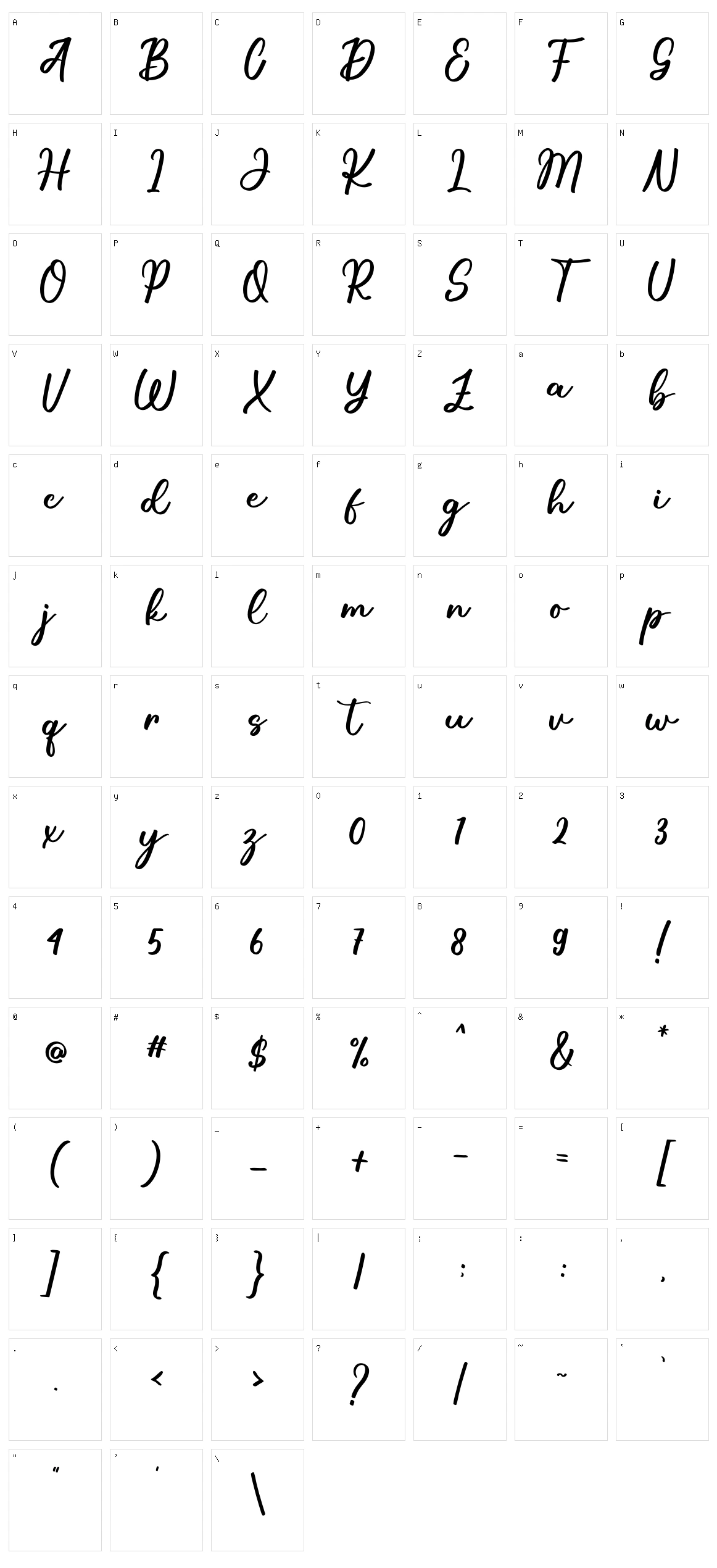
The free font Just Imagine is carefully designed by Bluestype Studio, showcasing a thoughtful balance of creativity and usability and falls under the Script font style. When you download the ZIP file, it contains only 48.09 KB of font files, making it lightweight and quick to download. Please review the license details below to understand permitted usage and distribution rights. If license information is not available, we recommend using this font for personal projects only or contacting the author directly for commercial usage permissions.